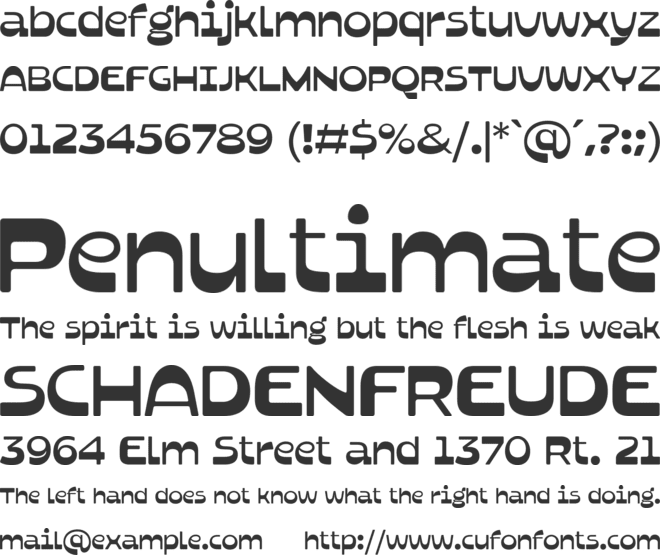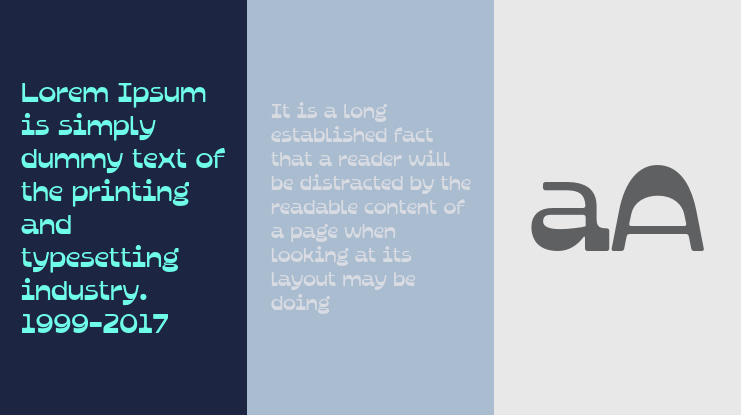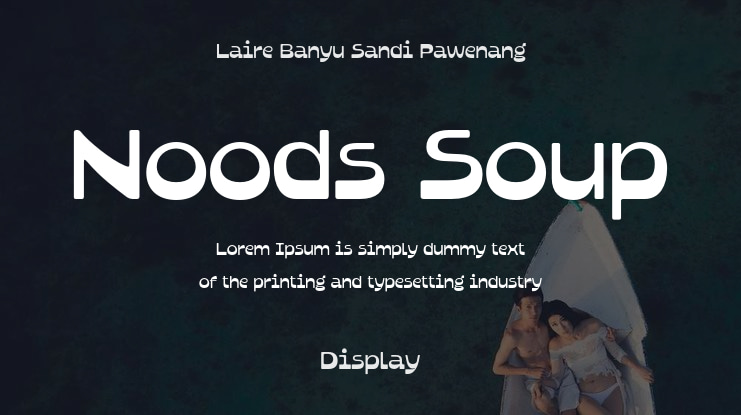
Download Noods Soup Regular for free and enjoy a retro-inspired
typeface with bold characters and timeless charm. This free version
captures the playful spirit of vintage lettering, perfect for posters, logos,
packaging, and personal projects. Designed to bring instant character
and personality to your work, Noods Soup Regular is crafted with
nostalgic details that remain fresh and relevant for modern use. A
perfect introduction to the full Noods Soup font family.